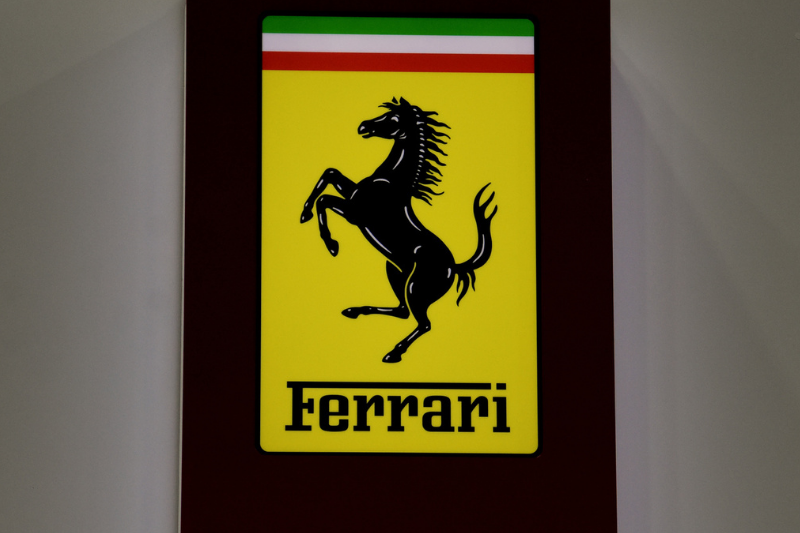
About the Ferrari Font Generator
Ferrari is a legendary Italian luxury sports car manufacturer that has captivated automotive enthusiasts for decades. Founded in 1939 by Enzo Ferrari, the brand has become synonymous with speed, performance, and elegance. Ferrari cars are known for their sleek designs, powerful engines, and rich racing heritage. The brand's logo, including its iconic font, plays a crucial role in conveying the essence of Ferrari's brand identity.
About Ferrari Font
The Ferrari logo is called "Ferrari Cavallino, very similar to Ferro Rosso by M. Hagemann." It is a custom typeface designed exclusively for the brand. The Ferrari font is characterized by its bold and dynamic letterforms. The typography exudes a sense of speed, precision, and sophistication, which aligns perfectly with Ferrari's high-performance image.
The Ferrari font features strong, angular letters with sharp edges and distinct proportions. It combines uppercase and lowercase letters, with the uppercase characters emphasizing boldness and impact, while the lowercase letters provide a balanced and harmonious touch. The stroke width variations within each letter add depth and dimension to the typography, enhancing its visual appeal.
Conclusion
The Ferrari font is essential in establishing the brand's visual identity. Its bold and dynamic design perfectly reflects Ferrari's image of speed, precision, and elegance. With the availability of Ferrari font generators, you and your designers can easily embrace the iconic typography of one of the world's most renowned luxury sports car manufacturers.